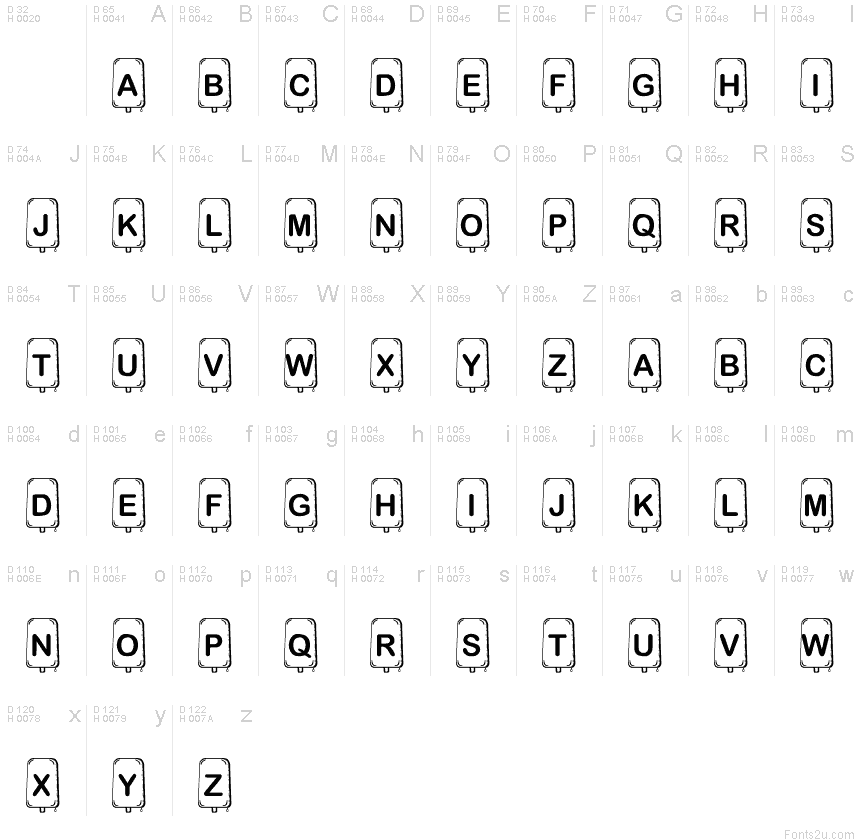
KR Popsicle
KR Popsicle by Kat is a free popsicle-themed decorative display font that turns each letter into a rounded frozen-bar shape with tiny drip-like details. The repeated wrapper-style outline keeps the set visually linked, so the word forms read as one cohesive summer motif rather than separate letters.
KR Popsicle works well on ice cream shop menus, summer posters, kids' party invitations, and product labels because the built-in treat shape gives short text an instant summer signal. It can also frame novelty logos and shop signs when a headline needs a simple visual hook instead of plain text.